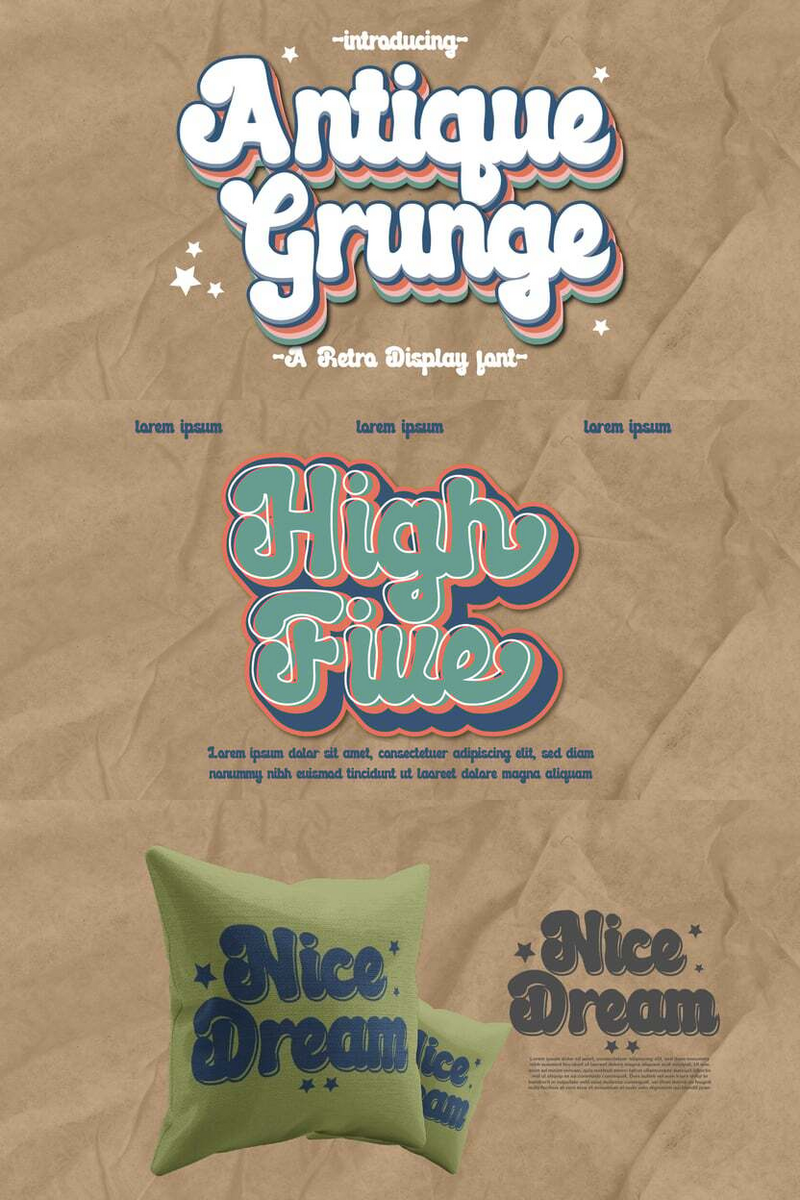
Antique Grunge: Digital Craft for Luxury's Editorial Vanguard
In the rarefied air of fashion and luxury, where visual identity is paramount and every detail whispers a brand's legacy, the quest for truly distinctive typography is unending. Brands strive to communicate heritage while simultaneously projecting an unyielding march towards innovation. This delicate balance often presents a profound design challenge – until now.
Introducing Antique Grunge, a revolutionary typeface meticulously engineered for discerning fashion and luxury brands. This isn't merely a font; it's a sophisticated design instrument born from the nexus of tech-inspired innovation and time-honored aesthetics. Imagine the raw authenticity of a cherished heirloom, subtly distressed with digital precision, then infused with the clean, futuristic lines of cutting-edge technology. Each character of Antique Grunge embodies this beautiful paradox: a seasoned patina meeting razor-sharp geometric contours, delivering a visual experience that is both deeply rooted and boldly avant-garde.
Consider the scenario of a heritage luxury brand, famed for its artisanal craftsmanship, launching a new collection that integrates advanced AI. Their existing branding, while elegant, struggles to convey this duality. A traditional serif feels too rooted in the past, while a minimalist sans-serif sacrifices the depth of their legacy. They need a typeface that speaks to both their century-old story and their audacious leap into the future. Antique Grunge precisely solves this dilemma. Its unique blend allows the brand to feature a sophisticated, almost tactile texture that nods to their handcrafted past, while its underlying digital architecture speaks volumes of their innovative trajectory. The result? A cohesive, compelling narrative that resonates across generations.
Antique Grunge stands apart by offering an unparalleled suite of benefits:
- Distinctive Brand Identity: Forge an instantly recognizable visual signature that differentiates your brand in a crowded marketplace. It's a statement of sophisticated rebellion, a nod to history with a gaze fixed firmly on tomorrow.
- Versatility Redefined: Flawlessly transitions between high-impact headlines in luxury print campaigns and crisp, legible body text on responsive digital platforms. Its adaptable nature ensures consistent brand messaging across all touchpoints.
- Emotional Resonance: Evoke a powerful emotional connection, tapping into the allure of both cherished tradition and exhilarating progress. It’s the visual equivalent of a vintage luxury item reimagined for the digital age.
- Tech-Inspired Precision: Benefit from meticulous digital craftsmanship. Every curve and line is optimized for modern displays, ensuring impeccable readability and striking visual impact across screens and high-fidelity print.
From the editorial pages of Vogue to the immersive interfaces of a luxury e-commerce experience, Antique Grunge finds its ideal application. Picture it gracing the cover of a high-fashion magazine, articulating a designer's manifesto on an interactive landing page, or providing the sophisticated backdrop for product descriptions on an opulent digital storefront. Its robust yet refined nature makes it perfect for brand manifestos, high-end packaging, event branding for fashion week, and exclusive digital campaigns that demand both gravitas and contemporary edge.
Antique Grunge: Future-Forward Elegance. Timeless Edge.